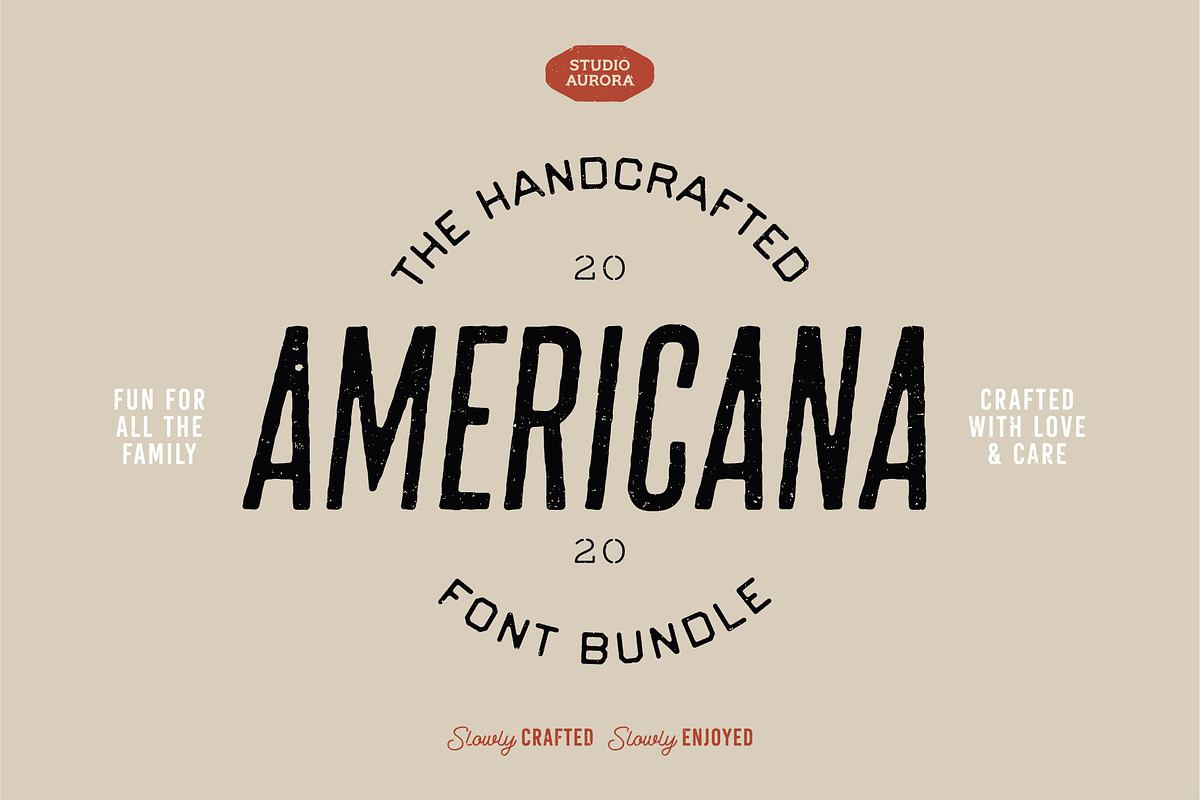
Handcrafted Americana Font Bundle Free Download
Handcrafted Americana Font Bundle Free Download is a unique collection of rustic, handcrafted fonts that capture the essence of American craftsmanship. Perfect for logos, branding, posters, packaging, and more, this font bundle brings a bold and vintage touch to your creative projects. With a mix of serif and script fonts, the bundle offers versatility and style for any project that needs a rustic, authentic feel.